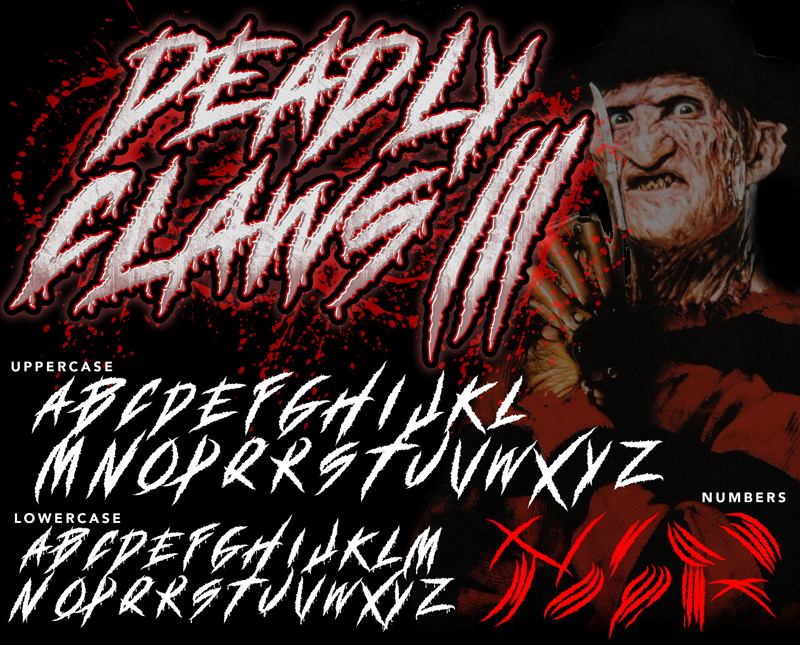
-Introducing- DEADLY CLAWS - A Horror inspired typeface made specially for this coming seasons. Good Donations is highly appreciated. Click Donate. For Commercial use, only cost $9.99, visit => www.knackpack.studio E N J O Y - Knackpack Studio |